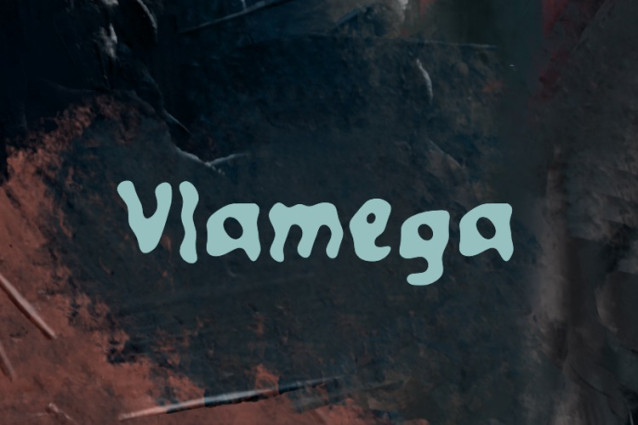
Vlamega Font
Vlamega Font, perfectly fit for branding, logo, wedding things, greeting cards, fashion, lookbook, marketing promotion, anytime you want to look fancy elegant but still casual.